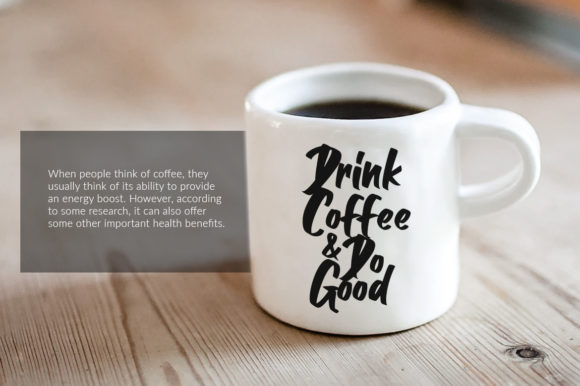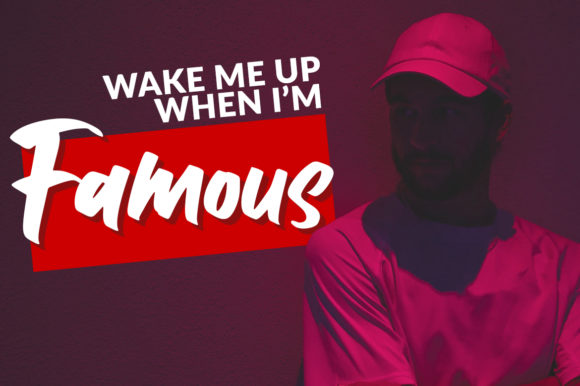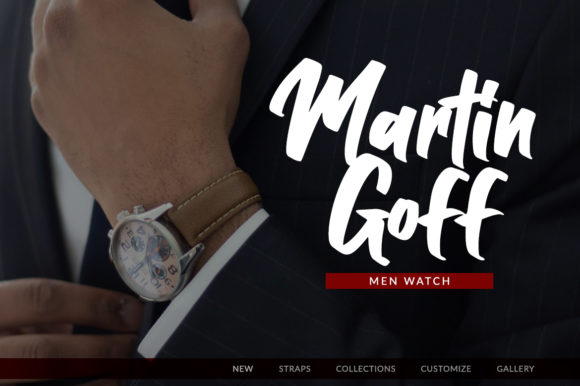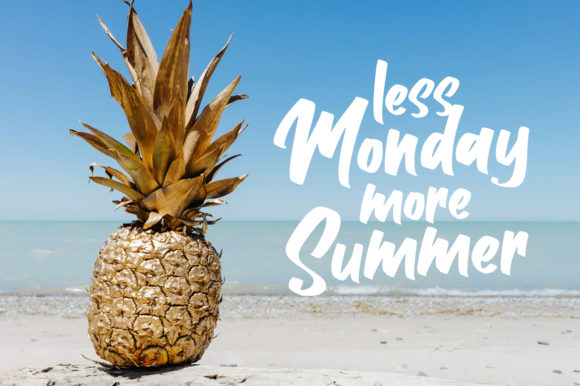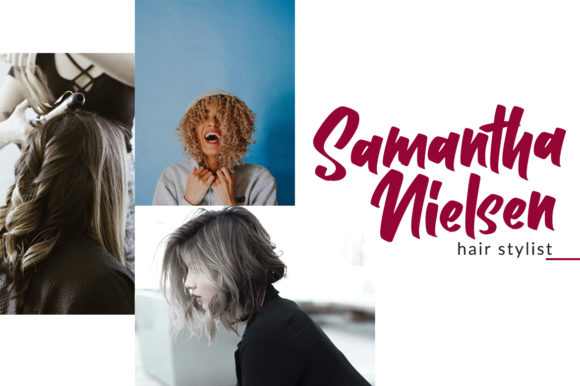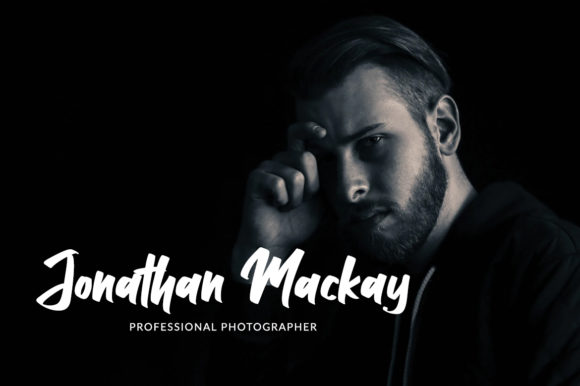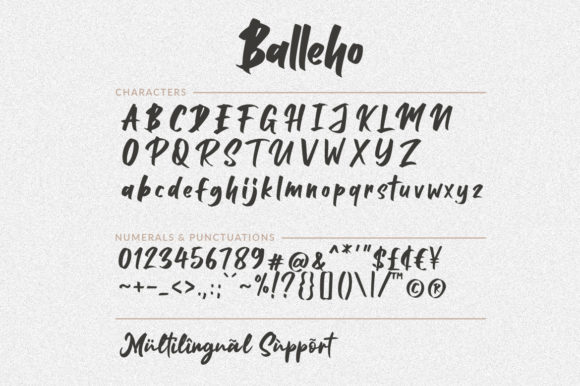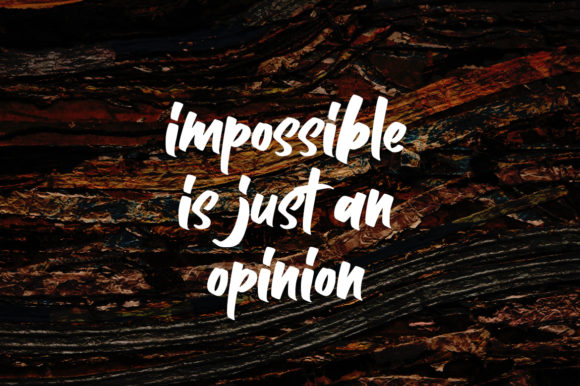
HomeScript FontsBalleho Font Script Fonts Balleho Font FacebookXPinterestWhatsApp Balleho Font Poster 2 Balleho Font Poster 3 Balleho Font Poster 4 Balleho Font Poster 5 Balleho Font Poster 6 Balleho Font Poster 7 Balleho Font Poster 8 Balleho Font Poster 9 About Balleho Font Balleho font is made with bold & unique brush strokes. It is perfectly suited for a wide variety of projects! DOWNLOAD ON CREATIVE FABRICAThis font is sold and delivered by Creative Fabrica. Font Canyon may earn a commission if you buy through this link. People also explored Slowly Duo Font Adusian Signature Starlight Font Estung Font Harmonica Font Flower Heart Font Bokeseni Black Condensed Italic Font Sagantha Font Princess of the Dark Font 270 0 TagsBalleho Font Previous articleBill Smith FontNext articleRoulette Font LEAVE A REPLY Cancel reply Comment: Please enter your comment! Name:* Please enter your name here Email:* You have entered an incorrect email address! Please enter your email address here Website: Save my name, email, and website in this browser for the next time I comment. Personal Use Free Zojihun Personal Use Free Read more about this font Hanifah Personal Use Free Read more about this font Dream Orphans Personal Use Free Read more about this font Pompom Personal Use Free Read more about this font BLOG Transform Your Website: Elevate Your Typography with 7 Best Web Font Generators Are you ready to transform your website's typography from ordinary to extraordinary? Great! Today, we're diving into the world of web font generators, which... 5 Fonts That Will Dominate Design Trends in 2026 Using Fonts in Digital Marketing: Tips to Strengthen Your Brand Identity Free Fonts Risk: Why Free Fonts Can Be Dangerous for Designers